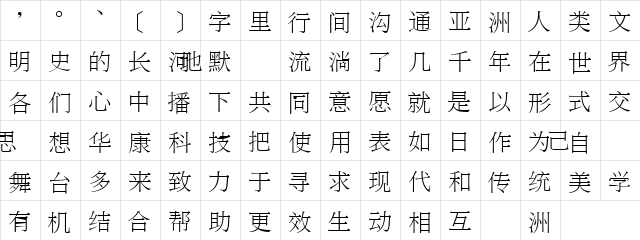
DFLiSongLight1BGB Regular Font Preview
DFLiSongLight1BGB Regular
Design Context for DFLiSongLight1BGB Typeface
DFLiSongLight1BGB is a composed and adaptable typeface that performs quietly and consistently across a wide range of design contexts. The delicate stroke weight brings airiness and refinement to layouts.